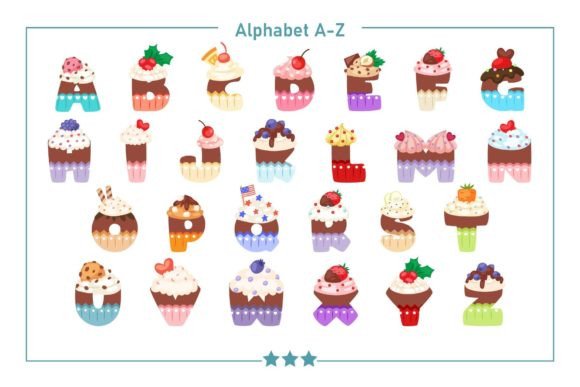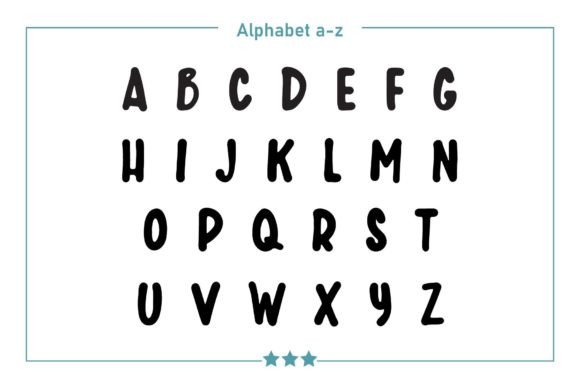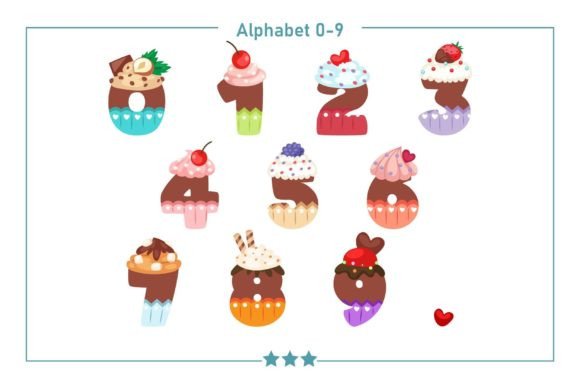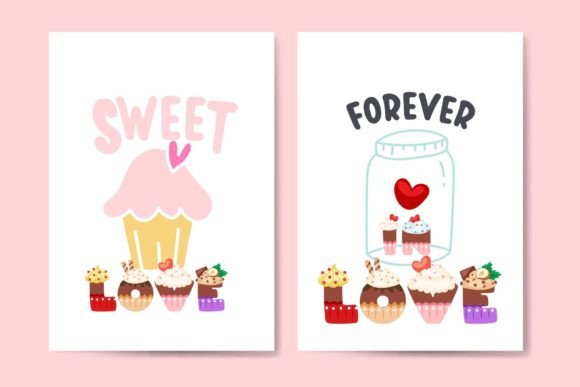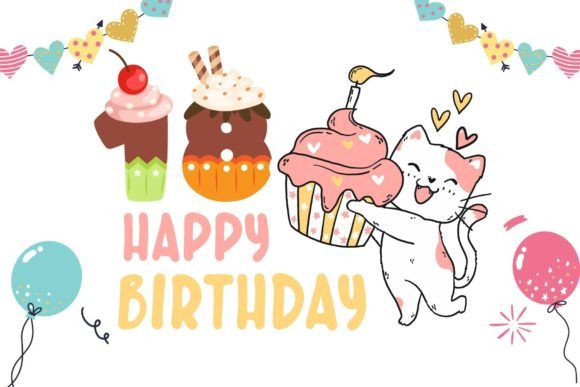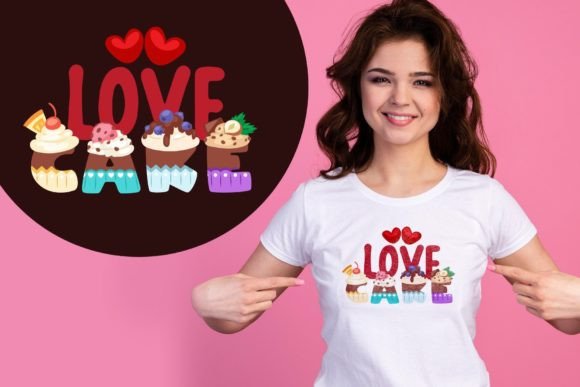
The Sweetest Addition to Your Design Toolbox: Cupcake Font
I’ll never forget the time I was working on a project for a client’s birthday party invitation. I had the design concept nailed, but something was missing – the perfect font. I scoured the internet, tried out dozens of fonts, but none seemed quite right. That was until I stumbled upon Cupcake Font. Its playful, colorful, and authentic feel instantly captured the essence of the party, and I knew I had found the one!
- ✨ Cute and Fun: Cupcake Font is exactly what it promises – a delightful, colorful font that adds a touch of whimsy to any design.
- ✅ Authentic Feel: Its unique style gives off a homemade, handcrafted vibe that’s perfect for projects that need a personal touch.
Cupcake Font was created with the intention of bringing a touch of whimsy and joy to designers’ and crafters’ projects. Inspired by the delightful world of baking and sweet treats, this font aims to add a dash of fun and personality to any design. Whether you’re creating invitations, greeting cards, or social media posts, Cupcake Font is designed to make your work stand out.
| What type of font is Cupcake Font? | Cupcake Font is an Opentype-SVG color font. |
Adding Cupcake Font to your design toolbox can elevate your projects with its unique, playful charm. Whether you’re a designer, crafter, or hobbyist, this delightful font is sure to bring a smile to your face and make your work stand out. So go ahead, give Cupcake Font a try, and see how it can sweeten up your designs!